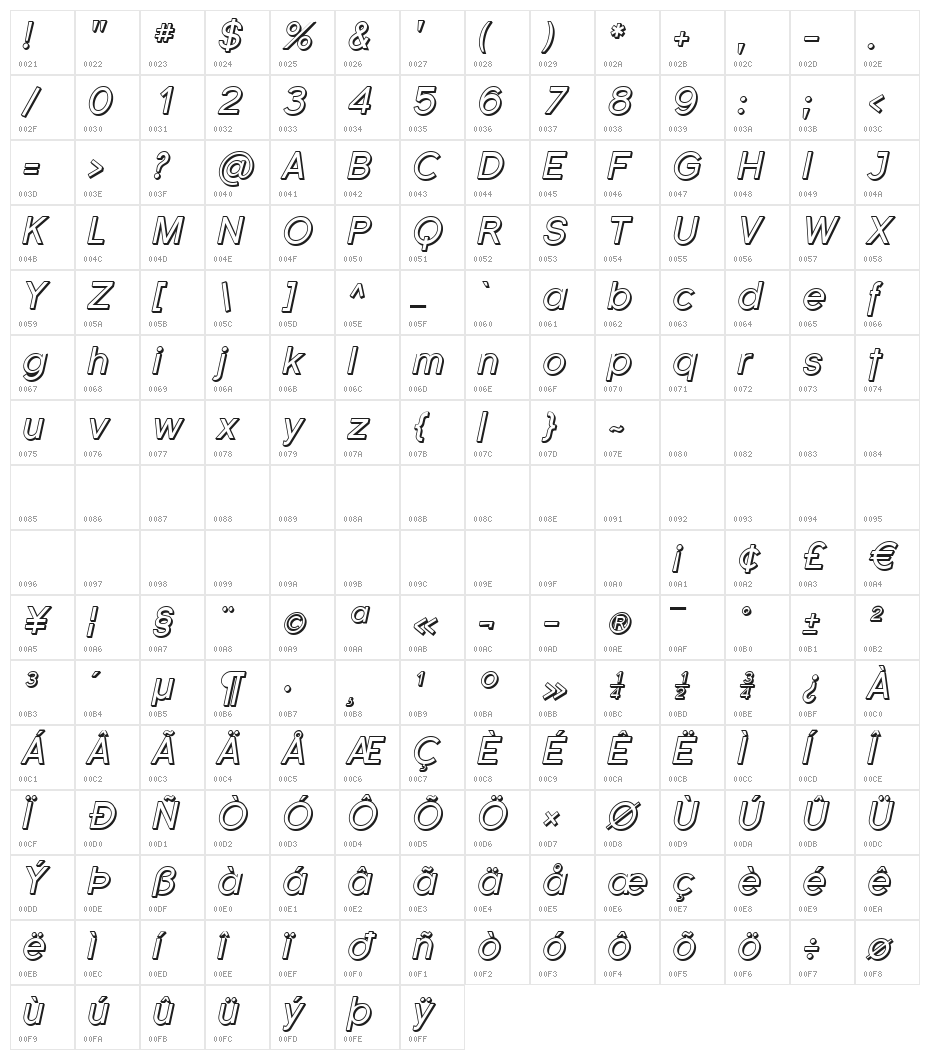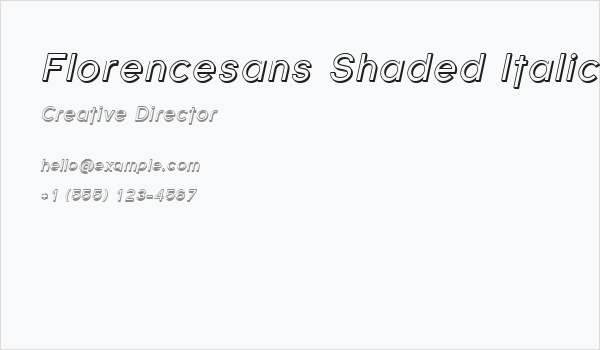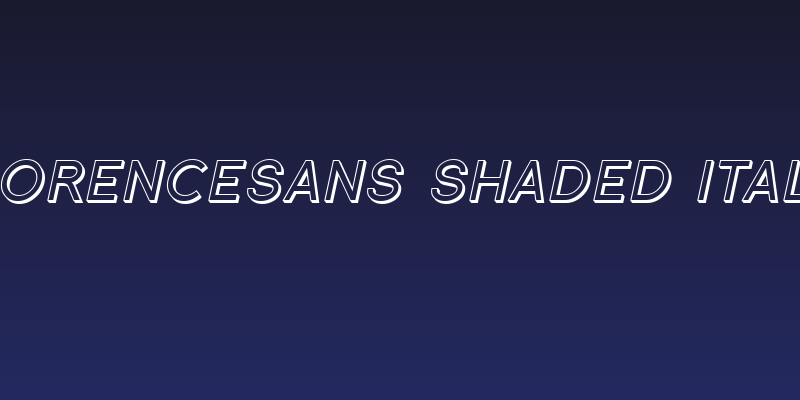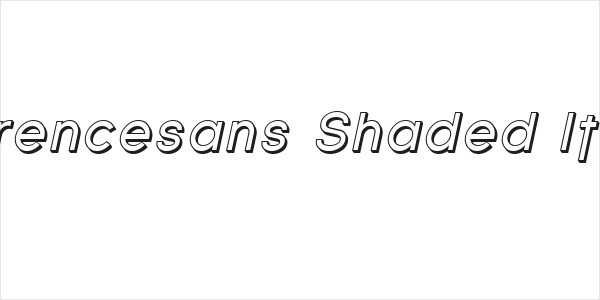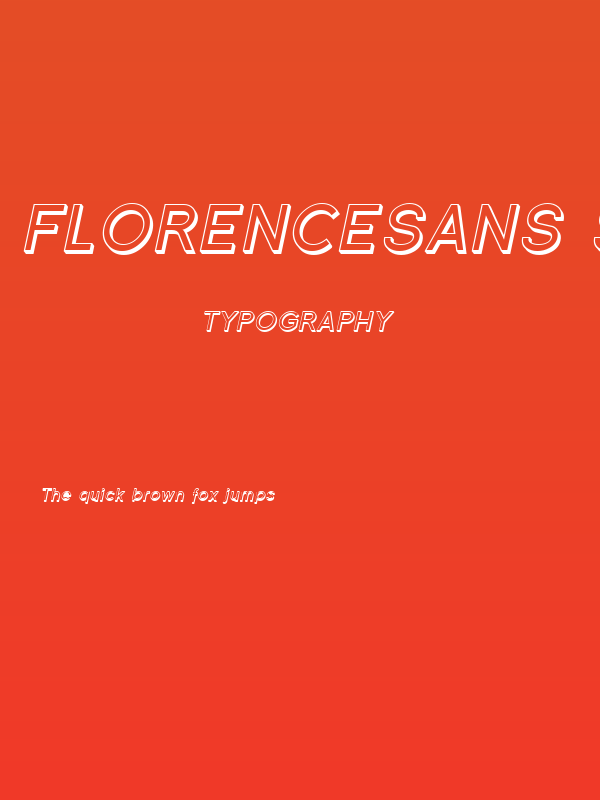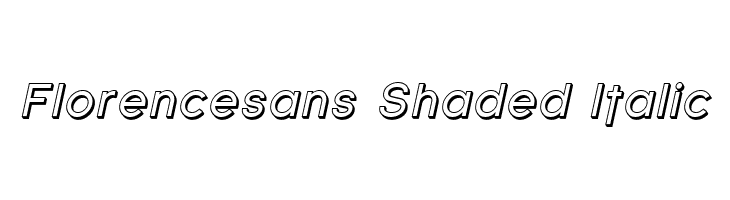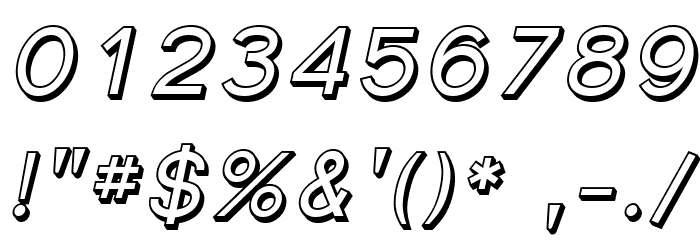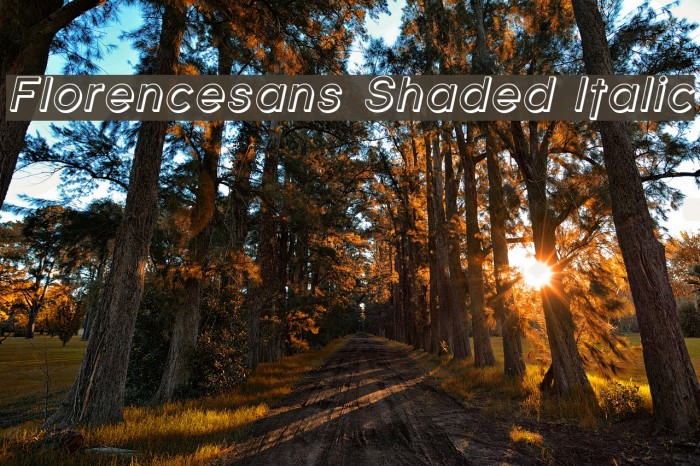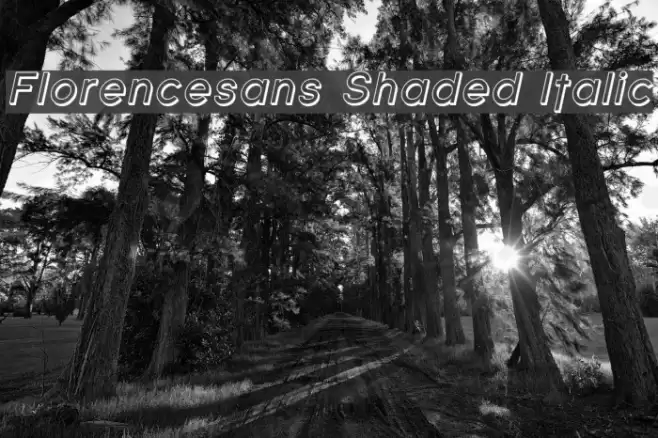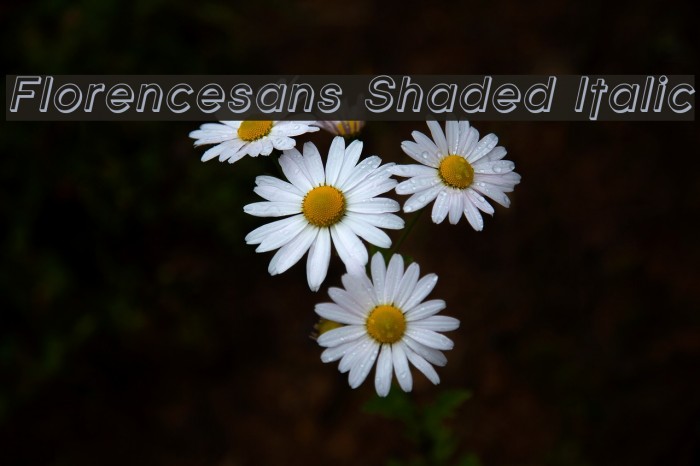
Florencesans Shaded Italic Font
✎ Sans Serif
Florencesans Shaded Italic Description
This font features a unique shaded design that adds depth and dimension to each character. The italic style gives it a dynamic and forward-leaning appearance, enhancing its modern aesthetic. The characters are outlined with a bold stroke, creating a striking contrast between the inner and outer edges. This design element makes the font stand out, making it ideal for eye-catching headlines and titles. The uppercase and lowercase letters maintain consistent proportions, ensuring readability. Numbers and special characters are also included, each with the same shaded and italicized style, providing a cohesive look across all text elements.